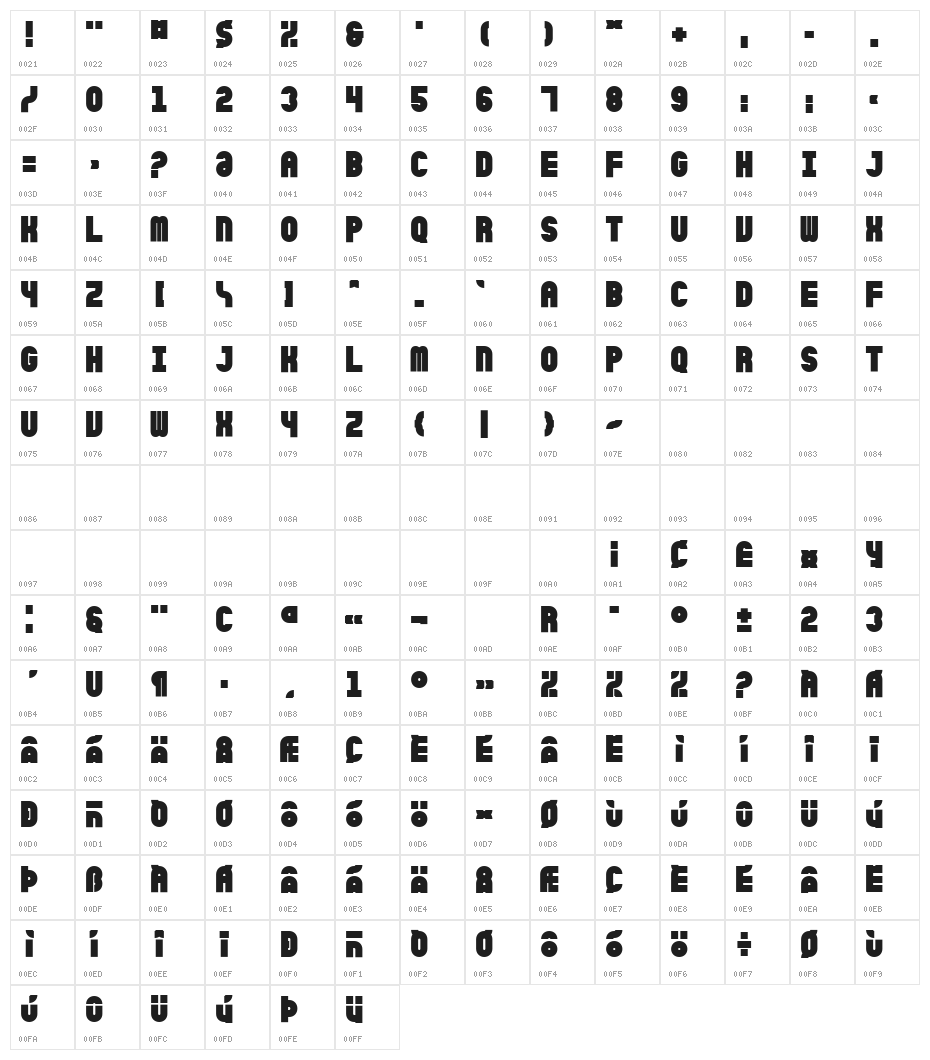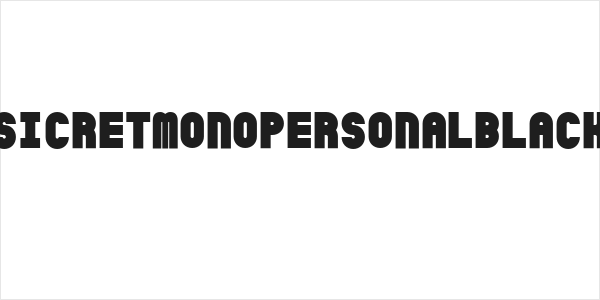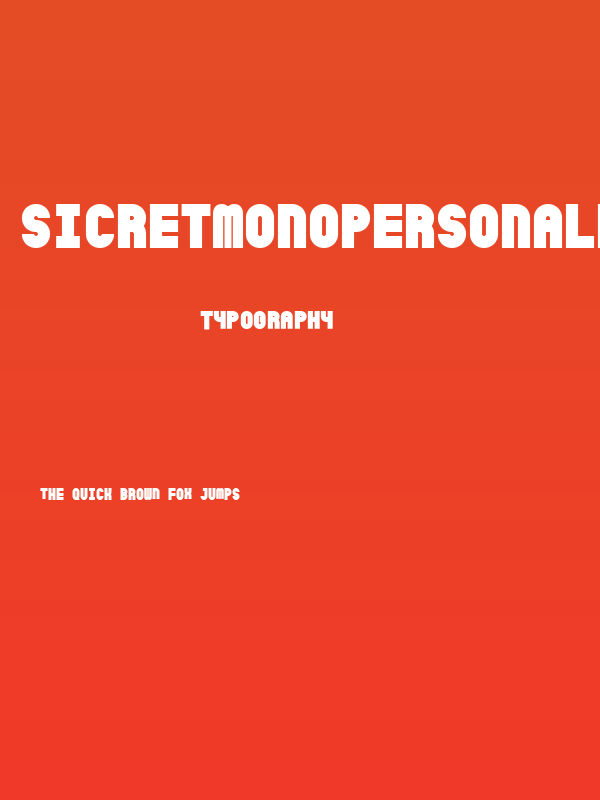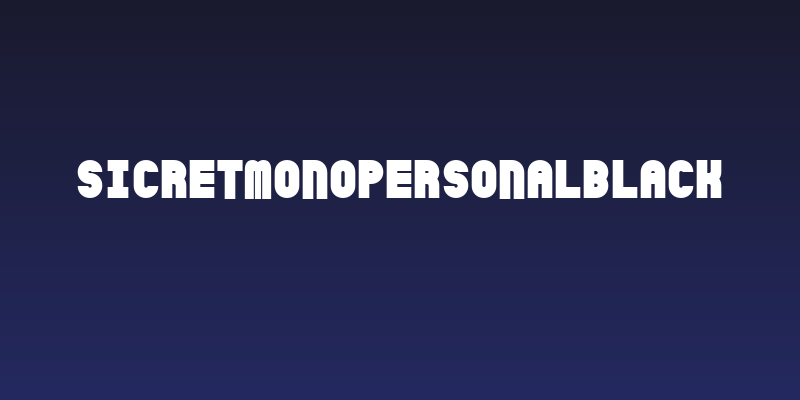
SicretMonoPERSONALBlack Font
SicretMonoPERSONALBlack Description
This font features a bold and striking design with thick, uniform strokes that create a strong visual impact. The characters are monospaced, ensuring equal width for each letter and number, which contributes to a clean and organized appearance. The uppercase letters are particularly prominent, with a blocky and geometric style that emphasizes their presence. The lowercase letters maintain the same boldness, ensuring consistency throughout the typeface. The numerals are equally robust, making them highly legible. Special characters are designed with the same boldness, ensuring they stand out clearly. Overall, this font is ideal for projects that require a strong, impactful typeface that commands attention.
| Proposed Projects | Ideal for headlines, posters, branding, and any design requiring a strong visual impact. |